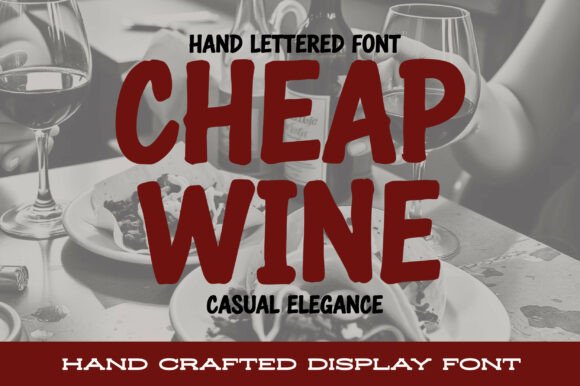
Introducing Cheap Wine Font: The Bold, Handcrafted Typeface with a Raw, Artisanal Charm
Are you tired of using the same old generic fonts for your design projects? Do you want to add a touch of raw authenticity and uniqueness to your logos, posters, menus, or packaging? Look no further than Cheap Wine Font, a bold, handcrafted typeface that wears its imperfections proudly.
The Story Behind Cheap Wine Font
Cheap Wine Font is not your average, run-of-the-mill font. It’s a carefully crafted typeface that embodies the spirit of handmade, artisanal design. Every stroke, every line, and every edge has been meticulously crafted to evoke the feeling of a loaded brush and the texture of dried paint.
The font’s creator aimed to capture the essence of a rough, honest, and full-of-flavor design that feels like it’s straight from the bottle. And that’s exactly what they’ve achieved with Cheap Wine Font. This font is not polished or refined; it’s unapologetic, handmade, and full of character.
Key Features of Cheap Wine Font
- Organic lines: Cheap Wine Font features organic lines that give it a natural, handcrafted feel.
- Thick slab feet: The font’s thick slab feet add to its bold, rugged charm.
- Uneven edges: The uneven edges of Cheap Wine Font give it a delightfully rough, artisanal texture.
- Handmade feel: The font’s handmade feel makes it perfect for designs that require a touch of raw authenticity.
What Makes Cheap Wine Font So Special?
So, what sets Cheap Wine Font apart from other fonts out there? For starters, its unique blend of bold, rugged, and artisanal characteristics makes it perfect for designs that need to stand out from the crowd.
Whether you’re designing a logo, poster, menu, or packaging, Cheap Wine Font is the perfect choice for adding a touch of raw authenticity and character to your work. Its imperfections are what make it special, and its handmade feel is sure to resonate with anyone who values uniqueness and individuality.
How to Use Cheap Wine Font in Your Designs
Using Cheap Wine Font in your designs is easy. Here are a few tips to get you started:
- Logos: Use Cheap Wine Font to create bold, eye-catching logos that stand out from the crowd.
- Posters: Add a touch of raw authenticity to your posters with Cheap Wine Font’s rugged, artisanal charm.
- Menus: Use Cheap Wine Font to create menus that feel like they’re handwritten with love and care.
- Packaging: Add a touch of character to your packaging with Cheap Wine Font’s unique blend of bold and rugged.
The Benefits of Using Cheap Wine Font
There are many benefits to using Cheap Wine Font in your designs. Here are a few:
- Unique and distinctive: Cheap Wine Font is unlike any other font out there. Its unique blend of bold, rugged, and artisanal characteristics makes it perfect for designs that need to stand out.
- Handmade feel: The font’s handmade feel adds a touch of raw authenticity to any design.
- Perfect for branding: Cheap Wine Font is perfect for branding projects that require a bold, eye-catching typeface.
- Easy to use: The font is easy to use and can be incorporated into a wide range of design projects.
In conclusion, Cheap Wine Font is a bold, handcrafted typeface that wears its imperfections proudly. With its organic lines, thick slab feet, and uneven edges, it’s the perfect choice for designs that need a touch of raw authenticity and character.
Whether you’re a designer, artist, or simply someone who appreciates unique and handmade design, Cheap Wine Font is a must-have font for your collection. So why settle for generic, run-of-the-mill fonts when you can add a touch of raw authenticity to your designs with Cheap Wine Font?